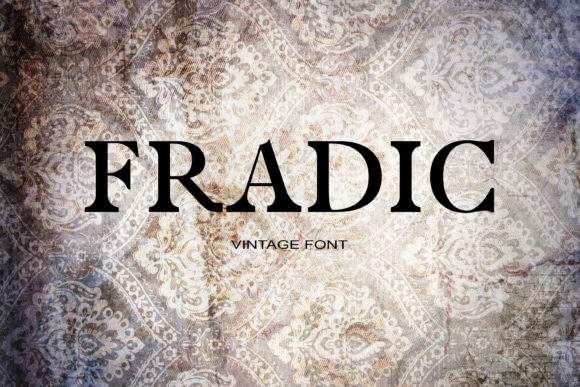
Fradic Font: A Timeless Classic for Your Design Projects
When it comes to selecting the perfect font for your design project, there are countless options to choose from. However, if you’re looking for a classic serif font with a simple and easy-to-read style, look no further than Fradic Font. This elegant font is perfect for designers and crafters who want to add a personalized touch to their work.
The Characteristics of Fradic Font
Fradic Font is a classic serif font that exudes a sense of sophistication and elegance. Its simple design makes it easy to read, even at smaller font sizes. The font features traditional serif elements, including small lines or flourishes at the ends of the strokes that make up the letters. This gives Fradic Font a timeless look that is perfect for a wide range of design projects.
Why Choose Fradic Font?
So, why should you choose Fradic Font for your design project? Here are just a few reasons:
- Ease of readability: Fradic Font is designed to be easy to read, making it perfect for body text, headings, and titles.
- Classic look: The font’s classic serif design gives it a timeless look that will never go out of style.
- Versatility: Fradic Font can be used for a wide range of design projects, from print materials like brochures and posters to digital projects like websites and social media graphics.
- Personalized appearance: Fradic Font adds a touch of personality to your design project, setting it apart from more generic fonts.
How to Use Fradic Font in Your Design Projects
Using Fradic Font in your design project is easy. Here are a few tips to get you started:
- Pair it with other fonts: Fradic Font works well when paired with other fonts, such as sans-serif fonts like Arial or Helvetica.
- Experiment with font sizes: Fradic Font looks great at a variety of font sizes, from small body text to large headings.
- Add a pop of color: Use Fradic Font in a bold color to add visual interest to your design project.
Fradic Font in the World of Design
Fradic Font is a versatile font that can be used in a wide range of design projects. Here are a few examples of how you can use Fradic Font:
- Print design: Use Fradic Font in print materials like brochures, posters, and business cards.
- Digital design: Fradic Font is perfect for digital projects like websites, social media graphics, and email marketing campaigns.
- Crafting: Fradic Font can be used in crafting projects like papercrafting, card making, and scrapbooking.
In conclusion, Fradic Font is a classic serif font with a simple and easy-to-read style that is perfect for designers and crafters who want to add a personalized touch to their work. Its timeless look and versatility make it a great choice for a wide range of design projects. Whether you’re working on a print project, digital project, or crafting project, Fradic Font is a great option to consider.
Get Creative with Fradic Font